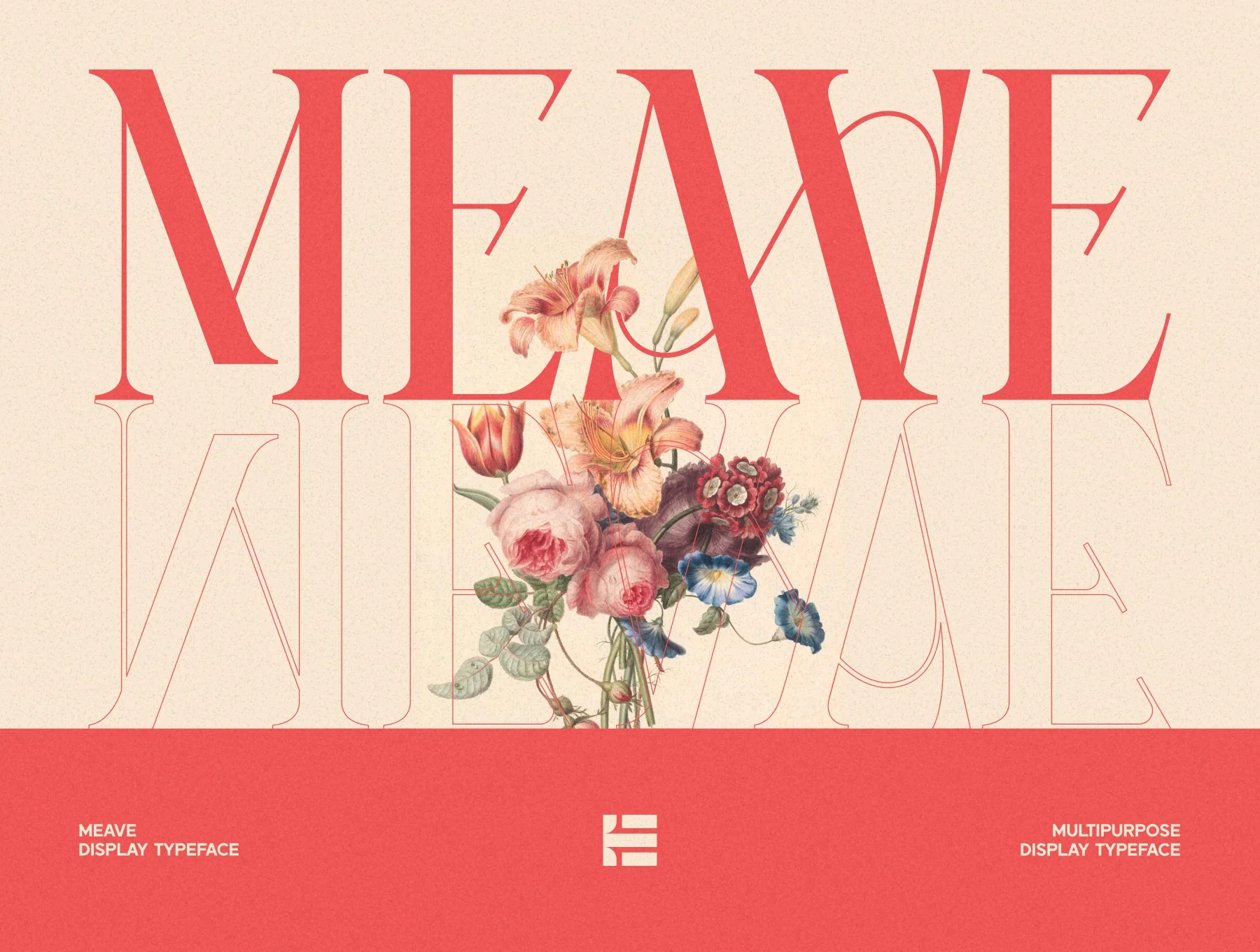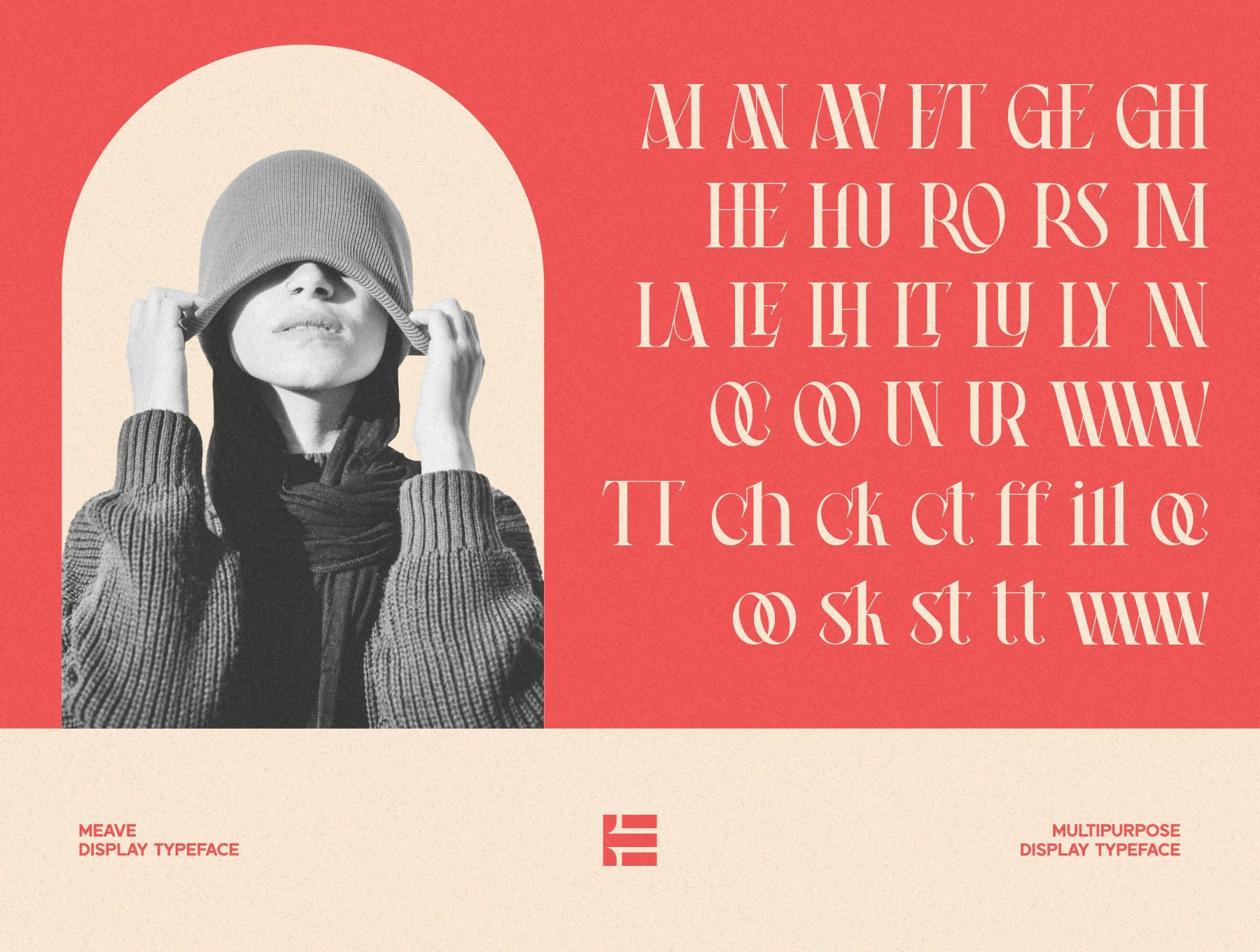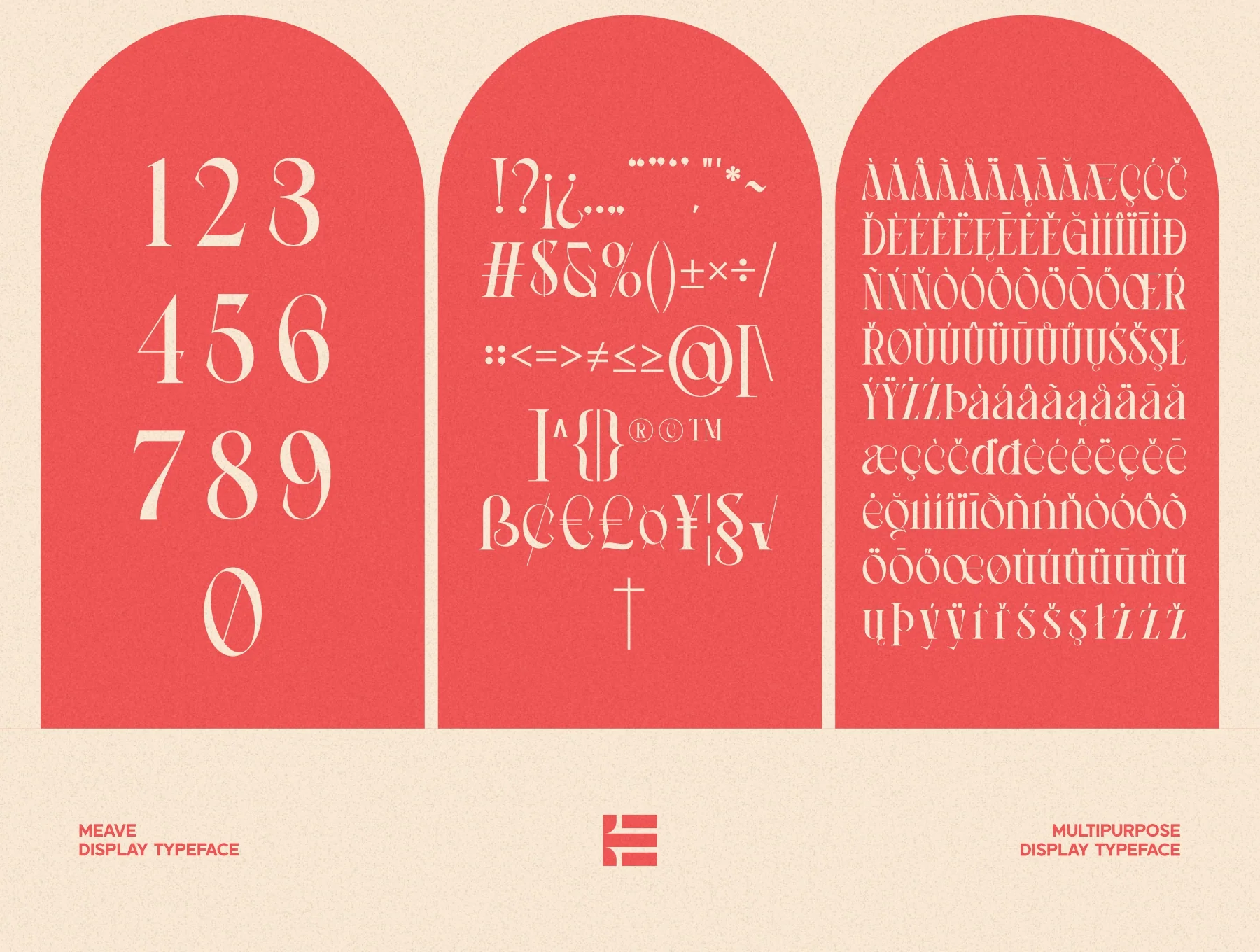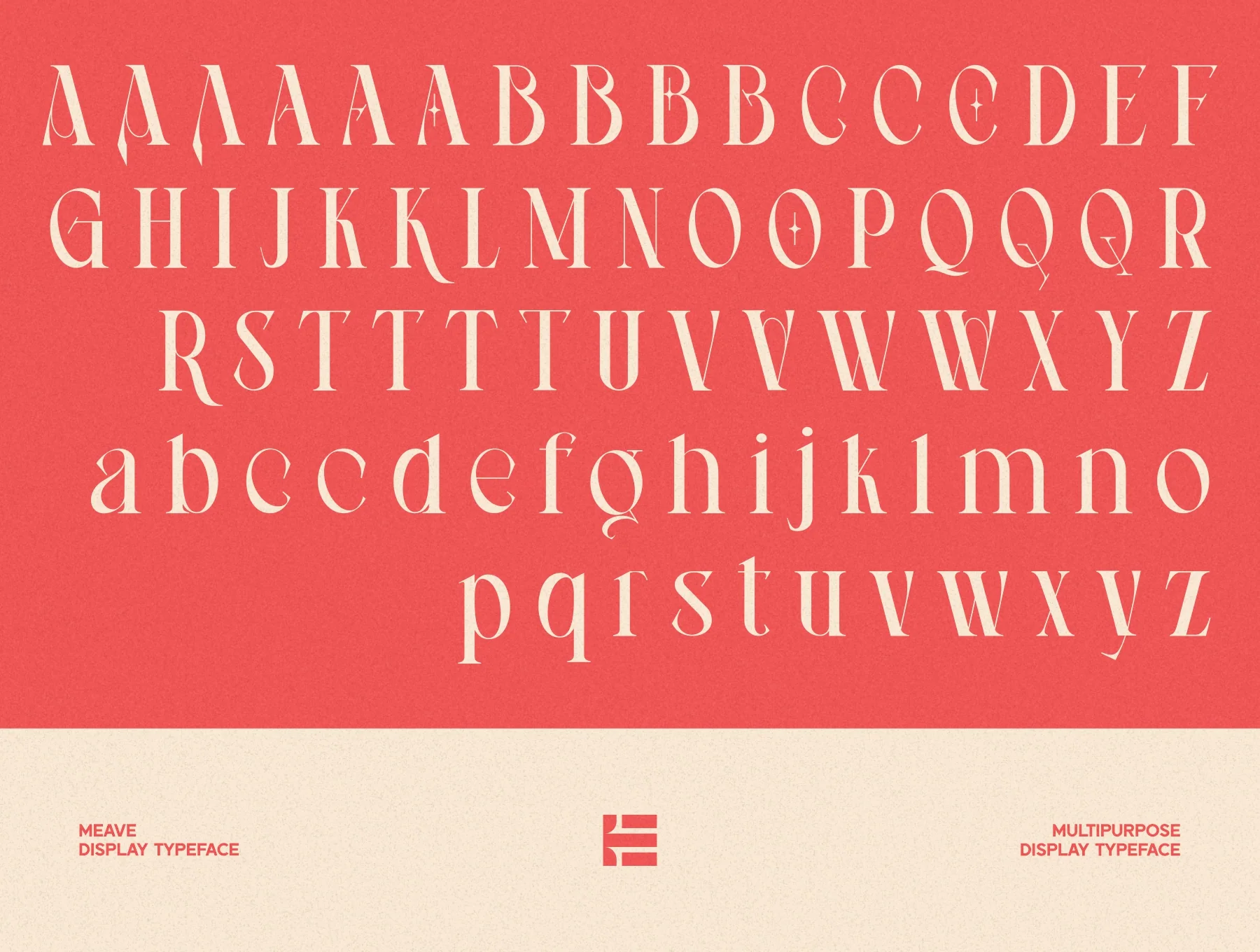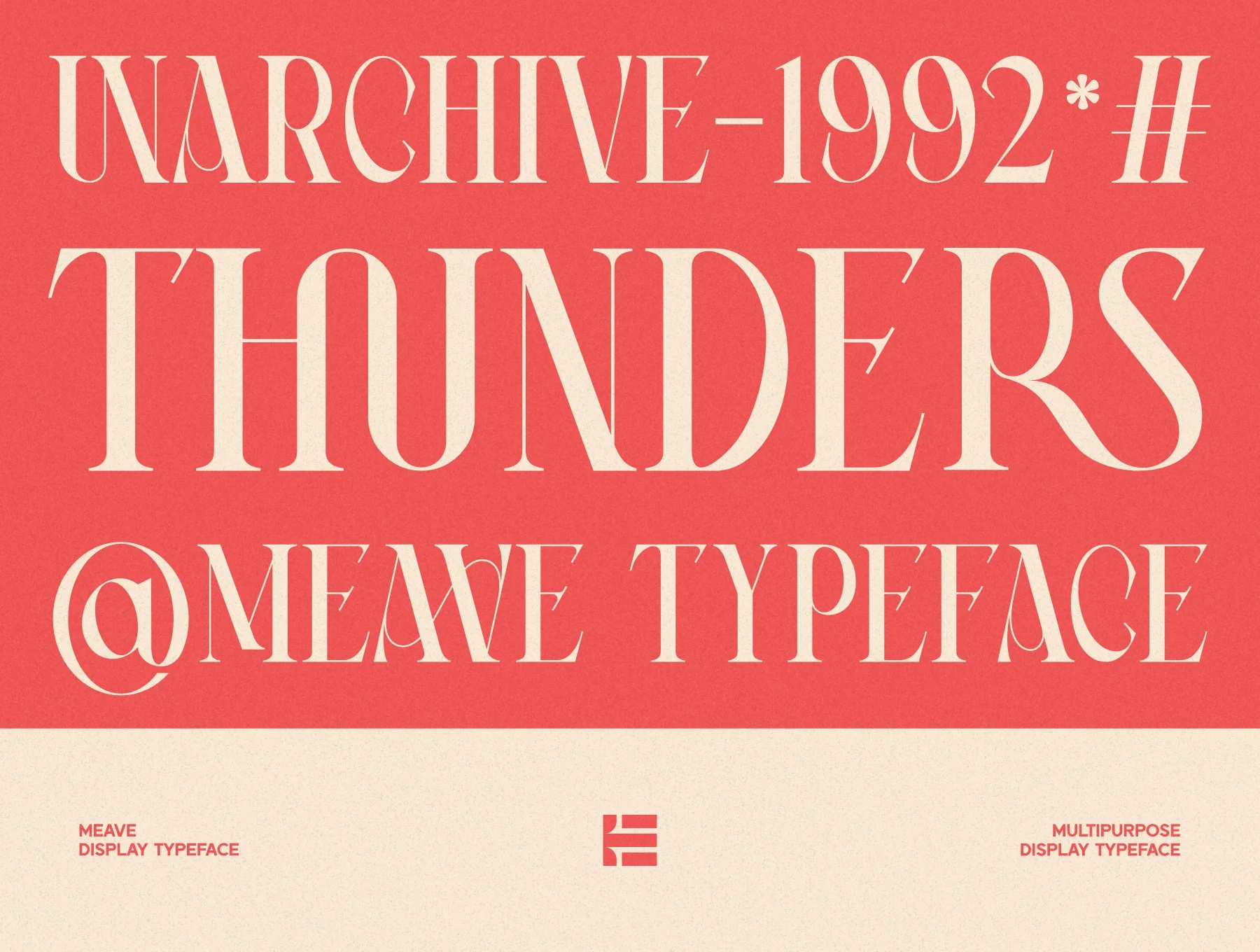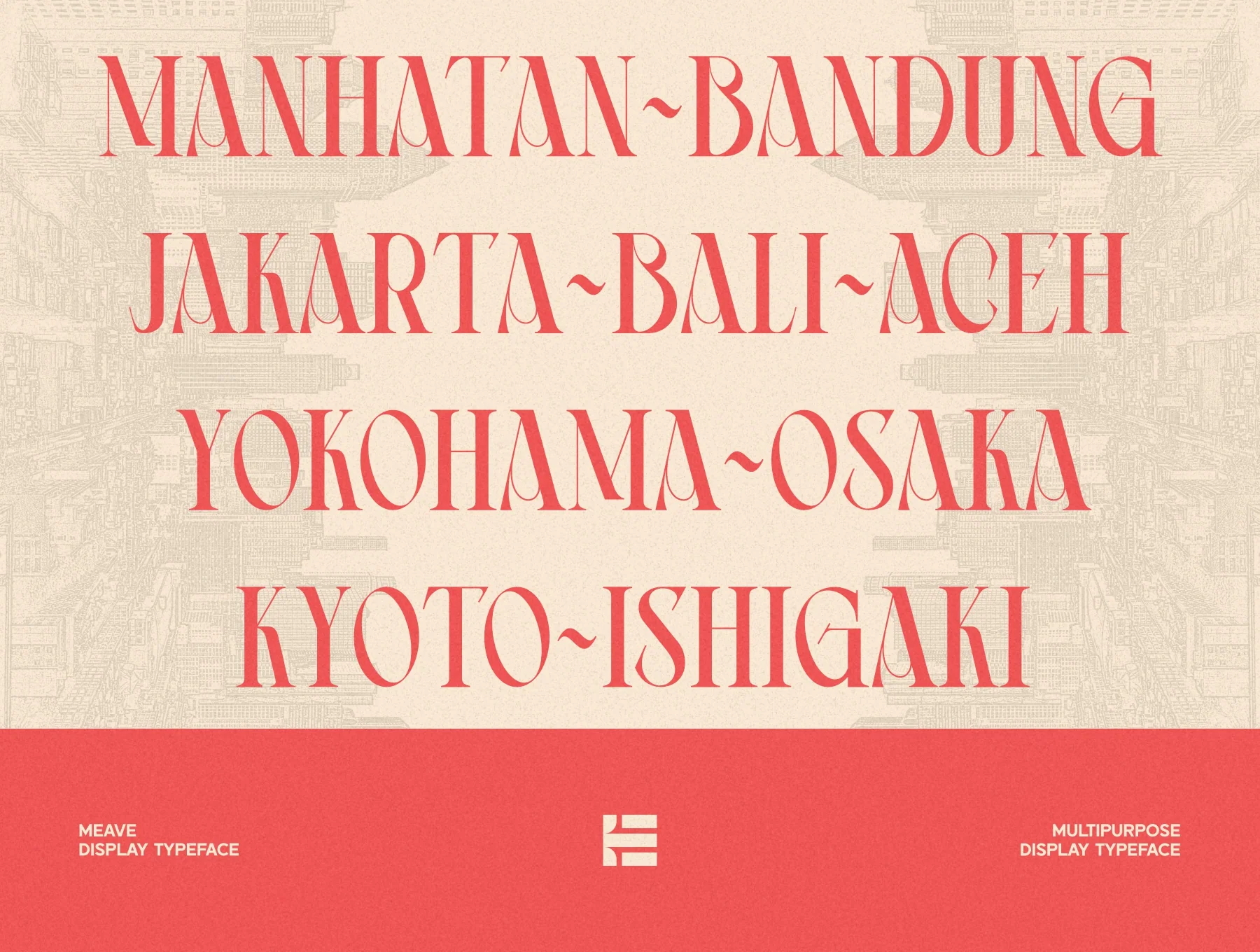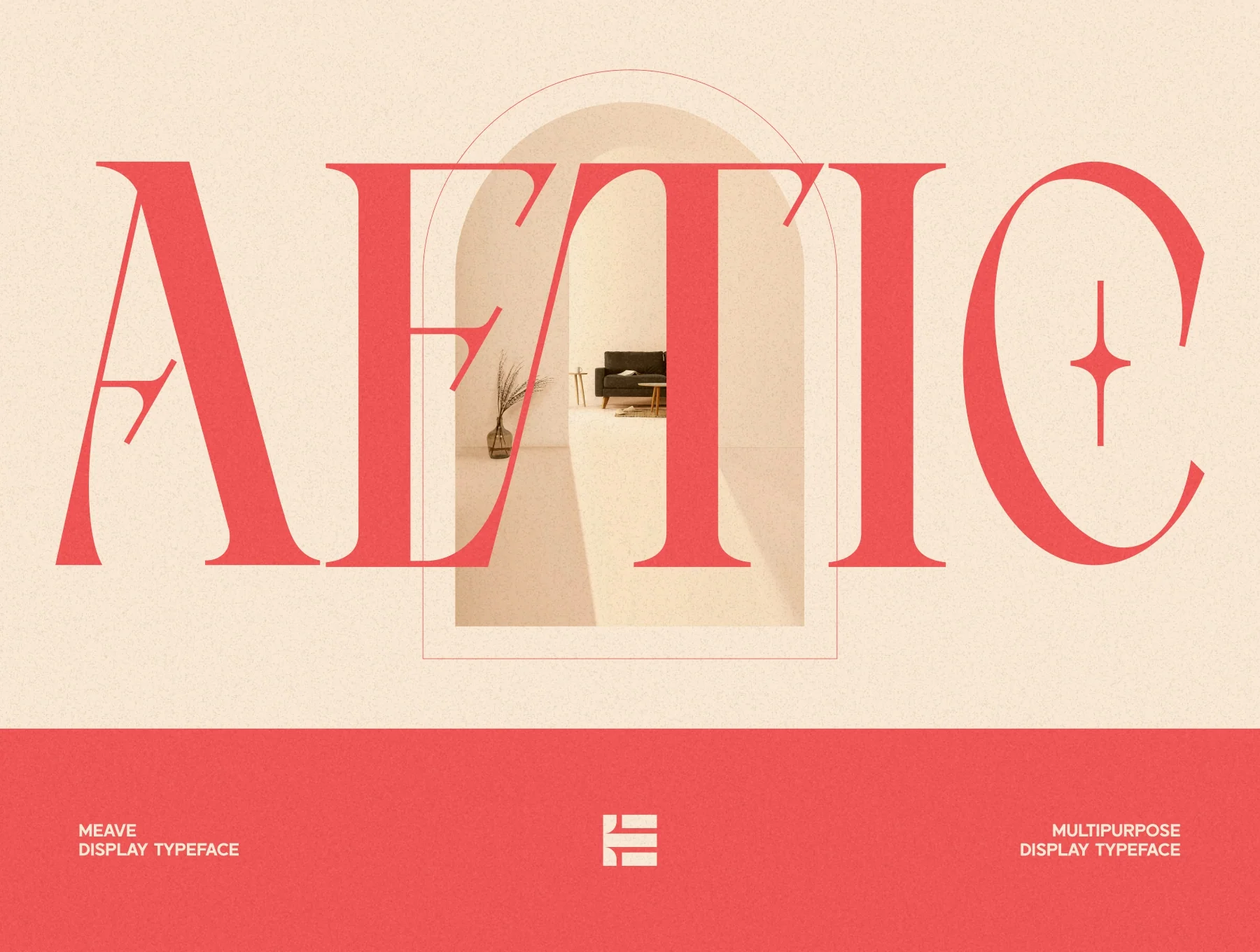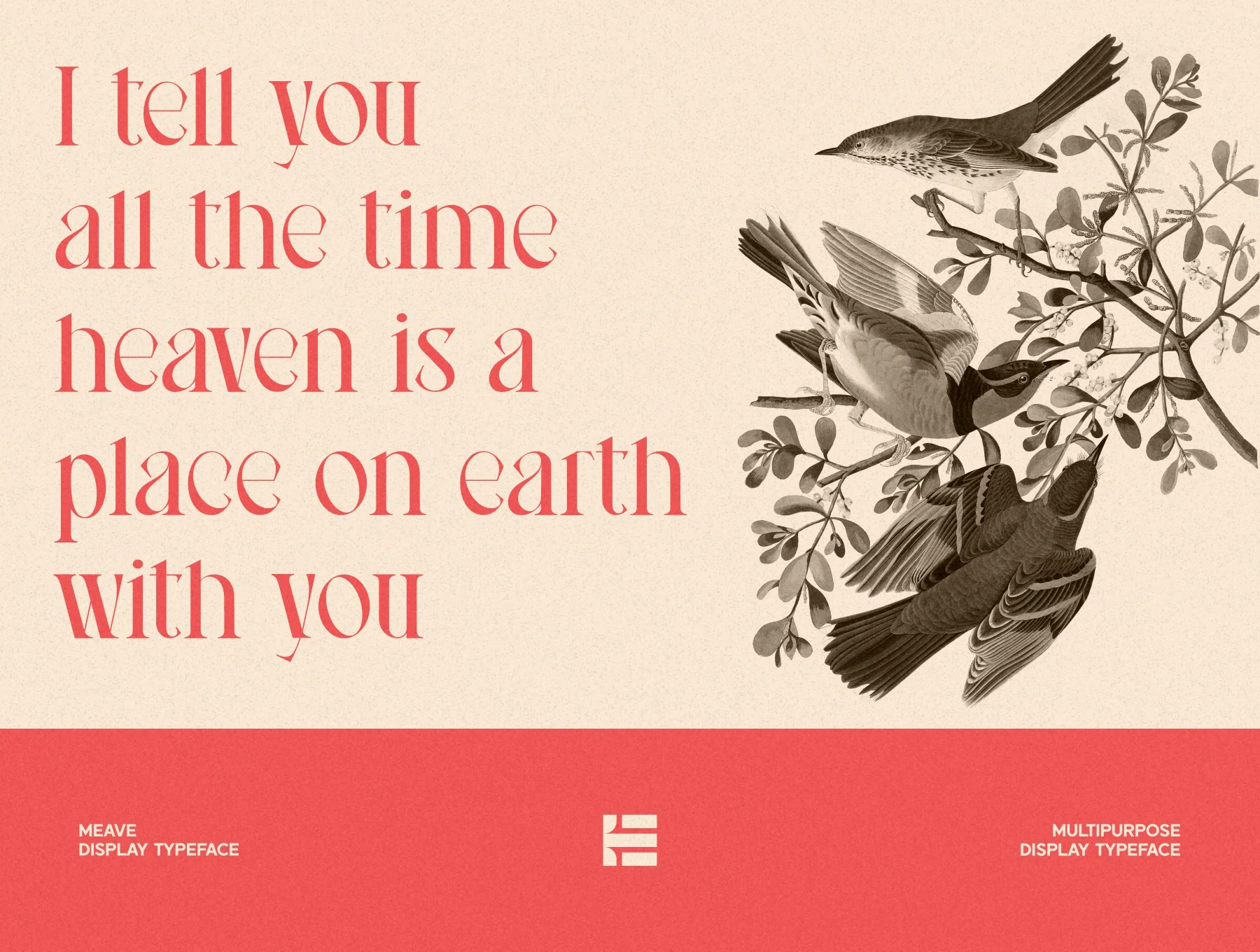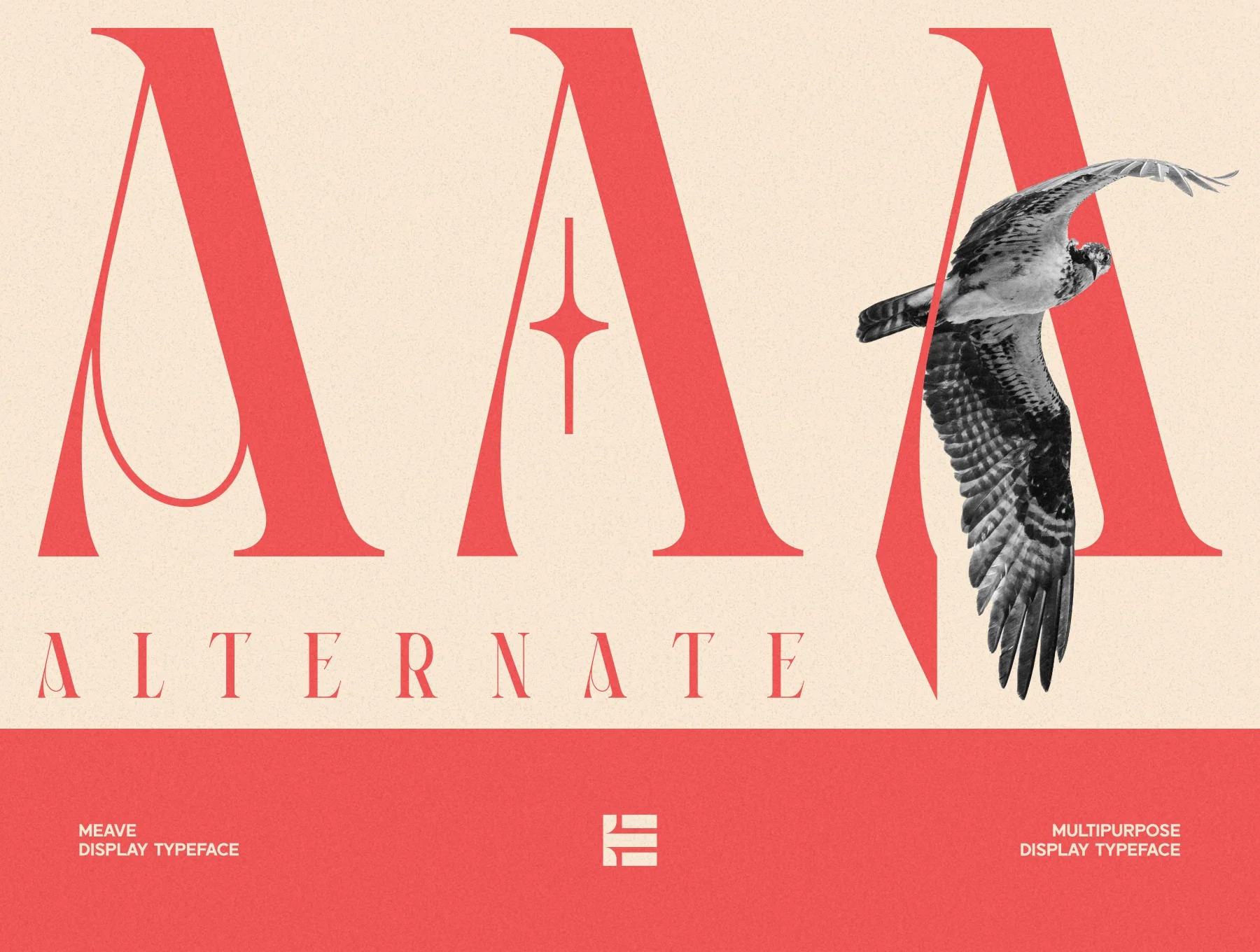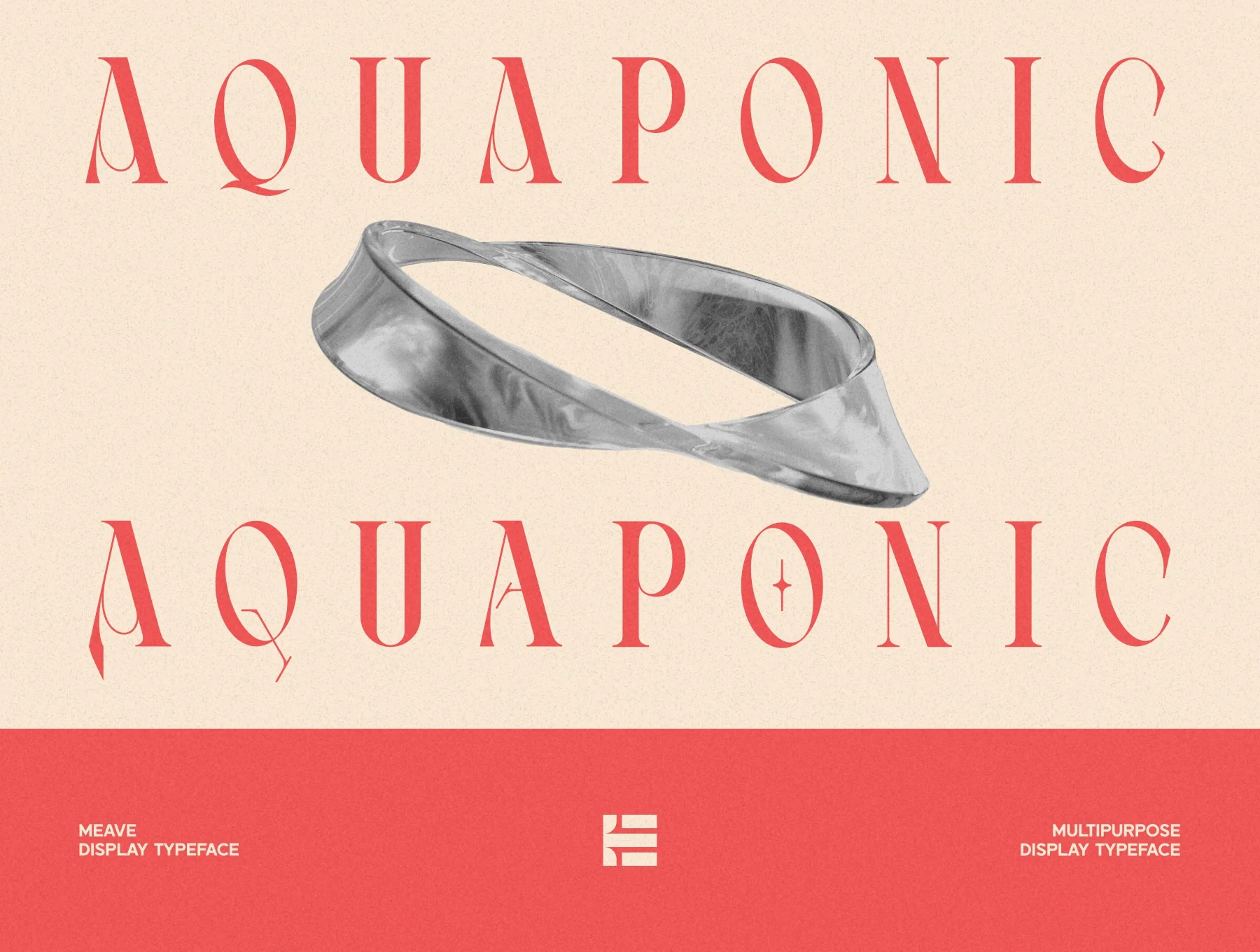
Meave Display Typeface
Meave contemporary classic serif typeface
Default glyph
Standard weight
Numbers & punctuation marks
Alternate styles & ligatures
Meave is a high-contrast serif typeface blending contemporary and classic style. It includes multilingual characters, numerals, punctuation, alternates, and ligatures. Ideal for distinctive logos, refined magazine layouts, and polished designs needing a sleek, graceful touch.